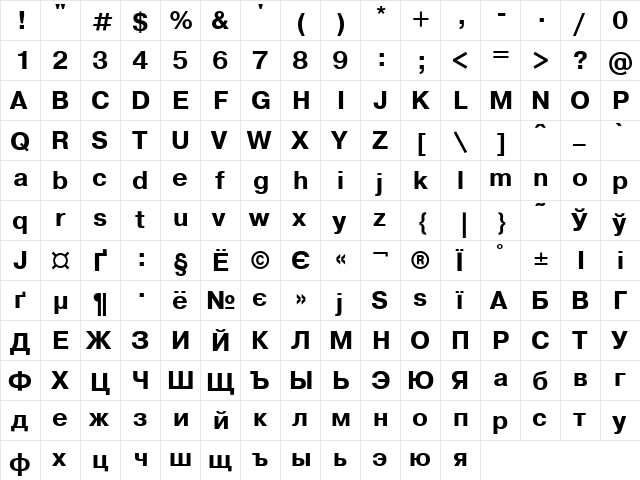
UkrainianPragmatica Bold
Design Context for UkrainianPragmatica Typeface
UkrainianPragmatica offers clean, dependable letterforms without strong stylistic allegiance, making it a practical choice for designers who need flexibility. The heavy weight commands attention and anchors typographic hierarchies.